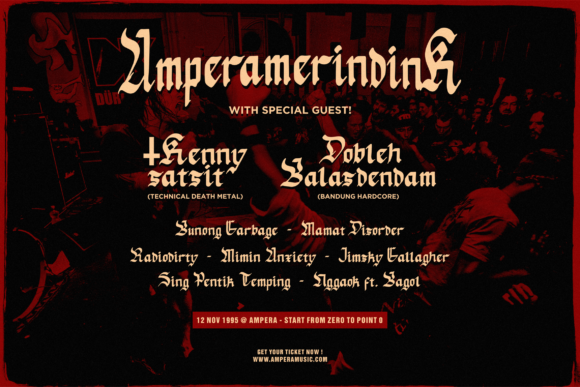
Mata Pisau Font
Mata Pisau is a bold and highly detailed blackletter font designed to make a strong impression. With its sharp lines and intricate curves, this typeface captures a classic yet powerful look. It brings a dramatic flair to any design, making it perfect for those who want to add a touch of intensity and character to their projects.
Whether you’re working on posters, album covers, or branding, Mata Pisau is a versatile display font that fits a variety of creative needs. Its striking appearance commands attention, helping your message stand out in any medium. This font is especially useful for designs that aim to be edgy, gothic, or vintage in style.